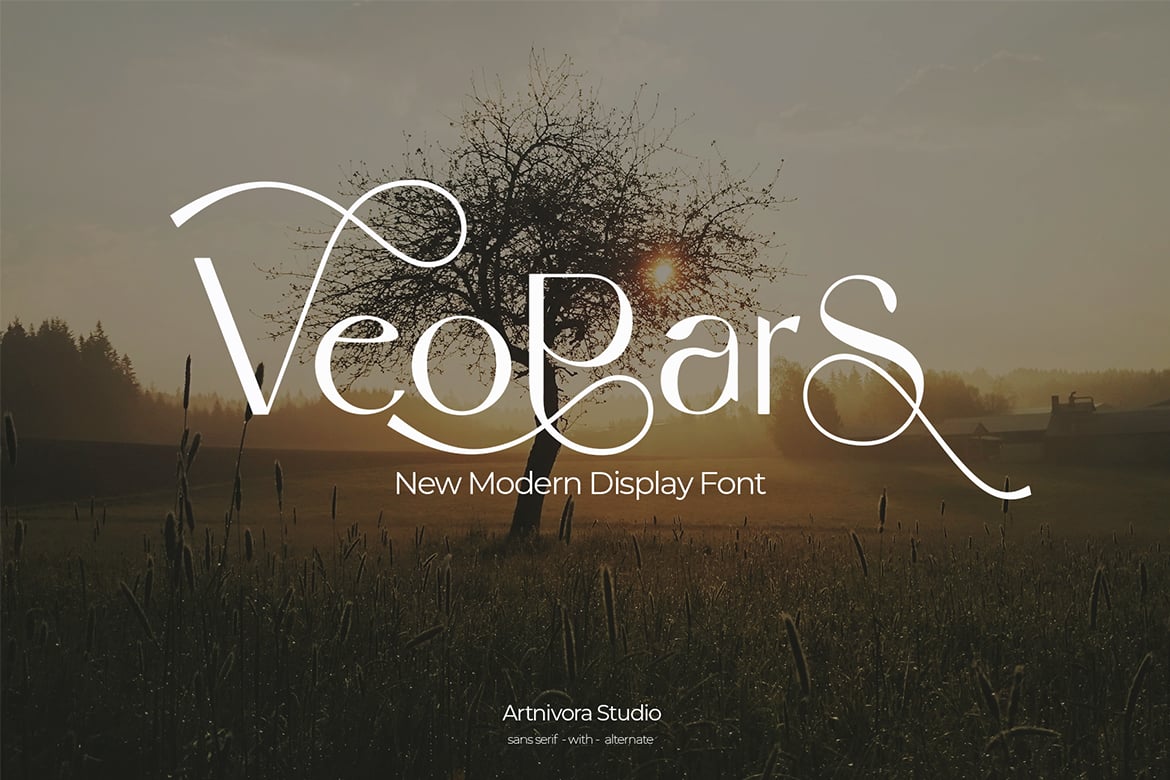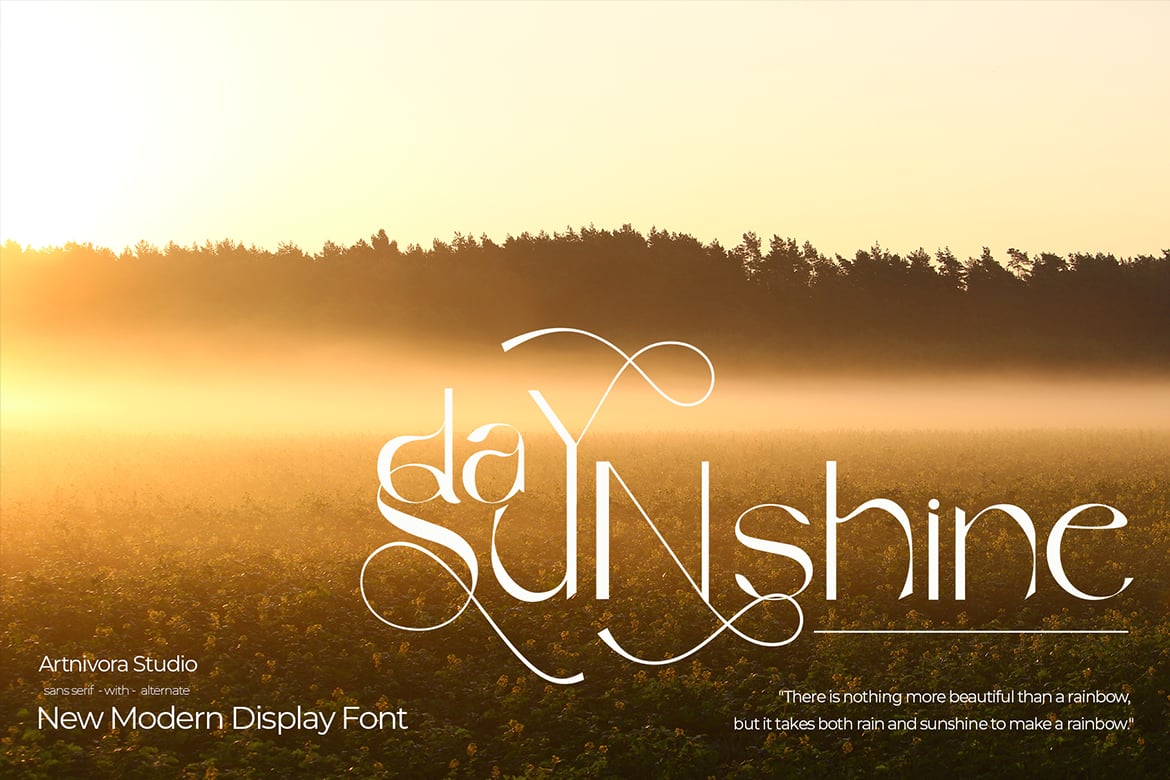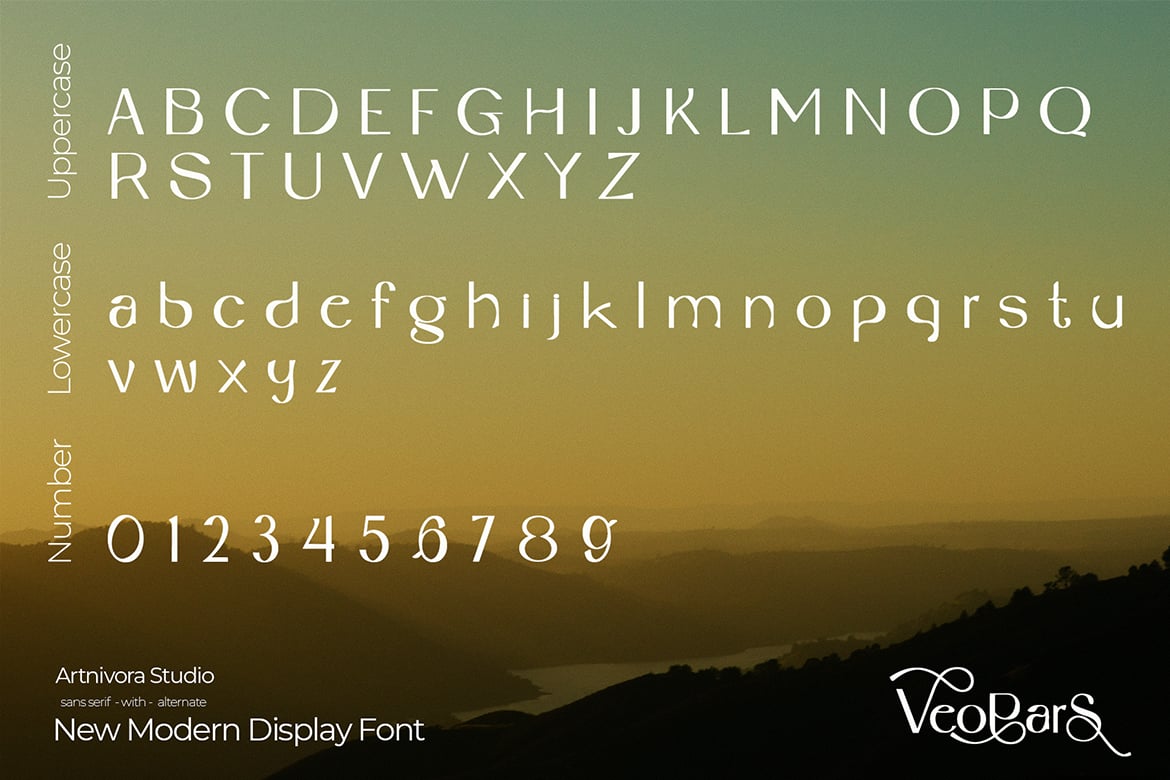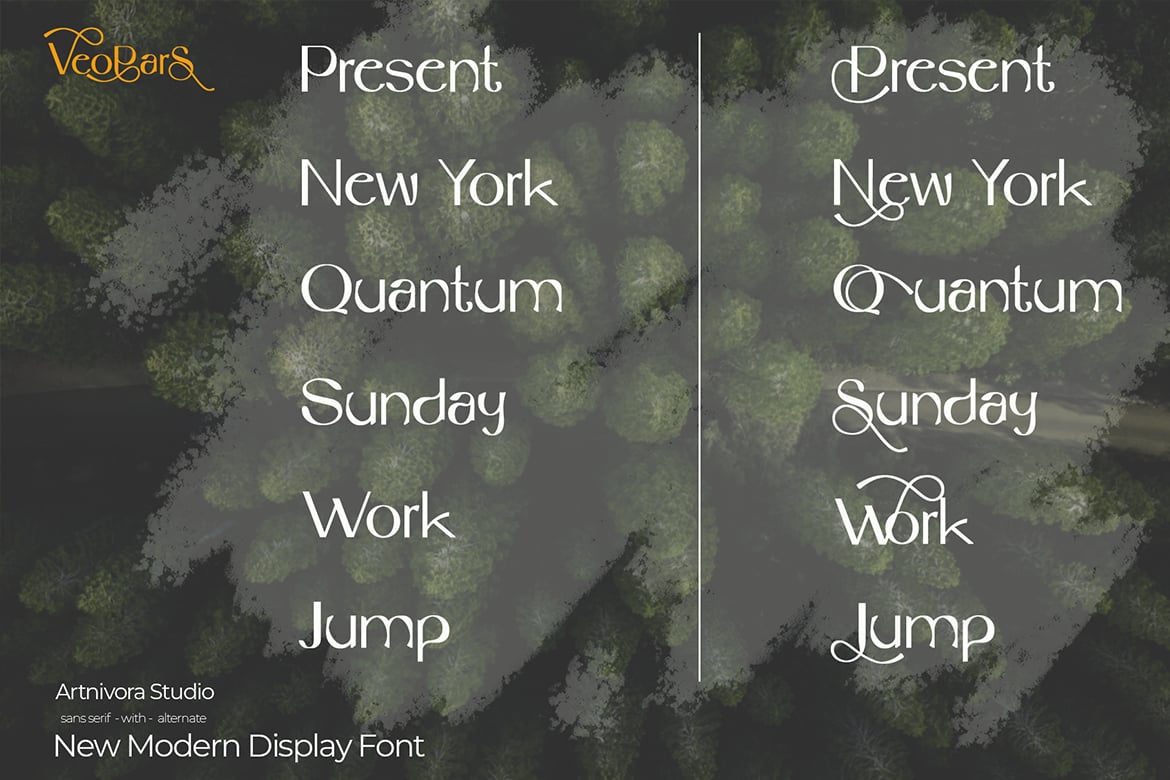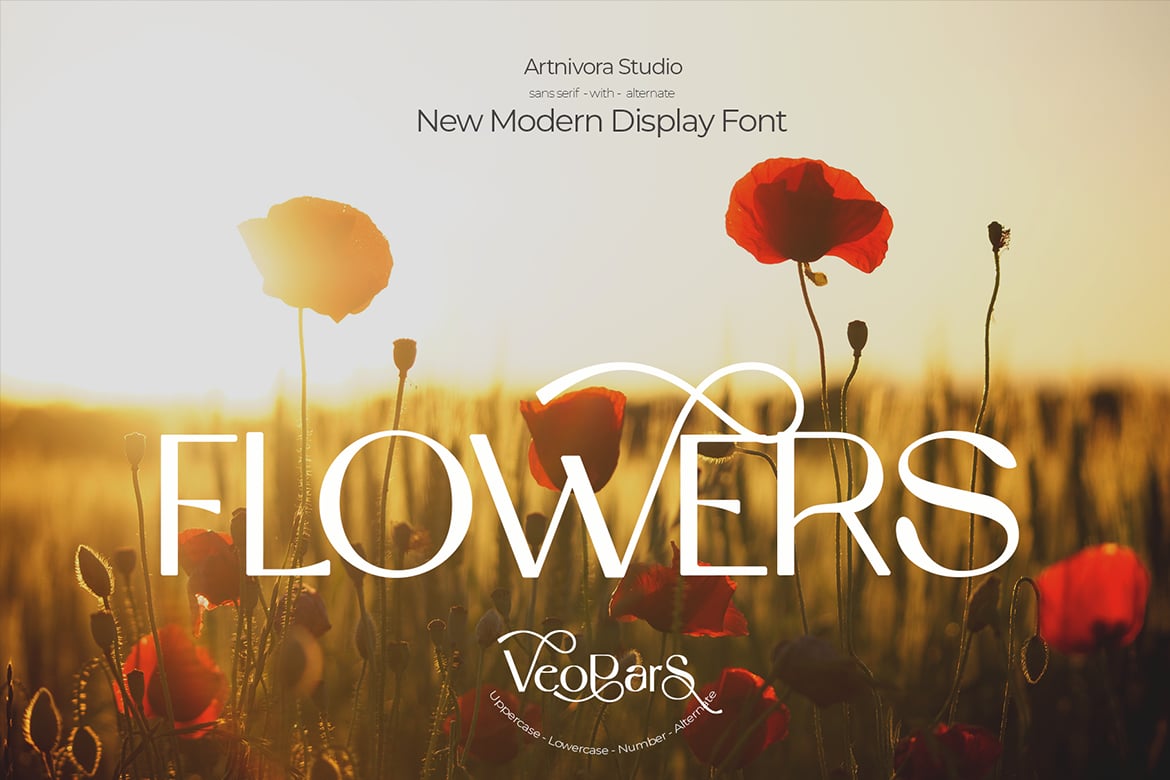
Veopars – Decorative Font
Introducing Veopras, an elegant, luxury, and beauty serif font. Its unique and lovely feel.
- Numerals
- Beauty alternate of P, N, Q, S,W, J